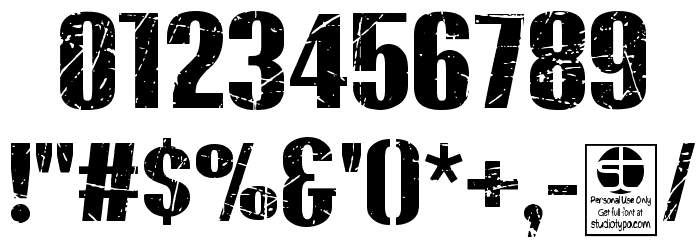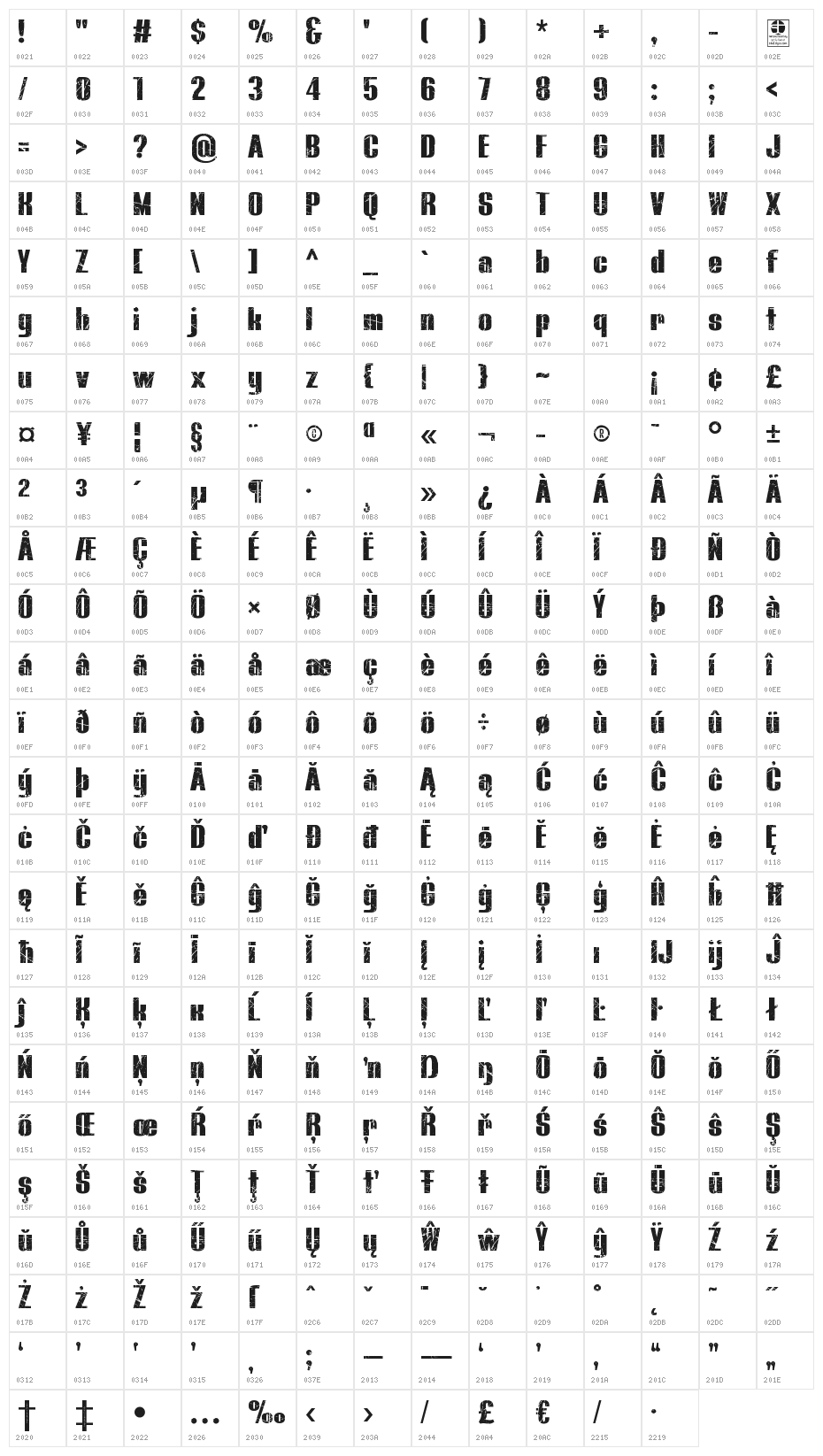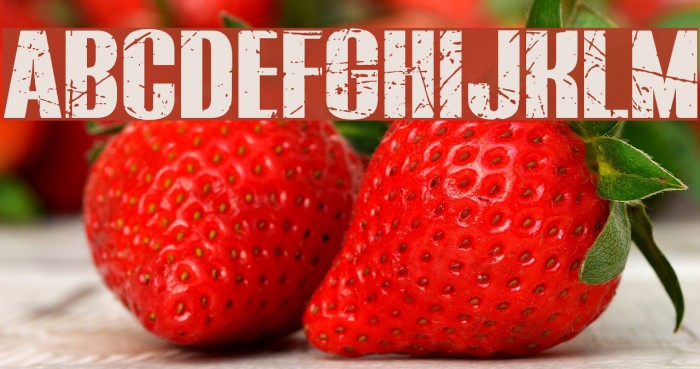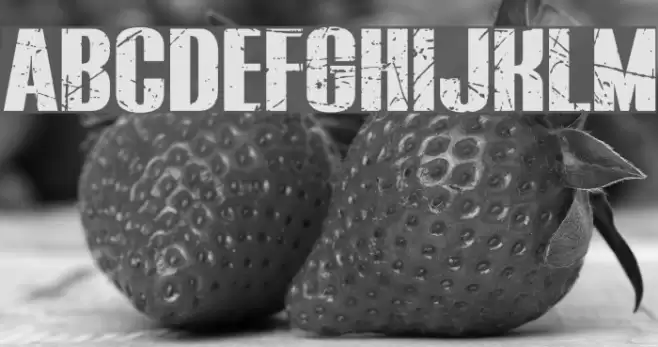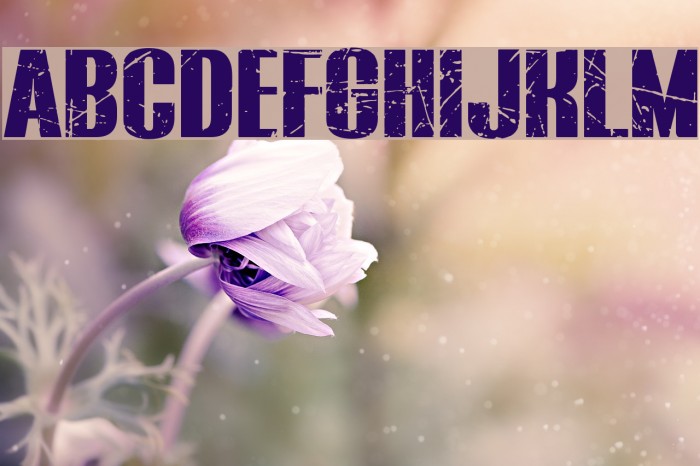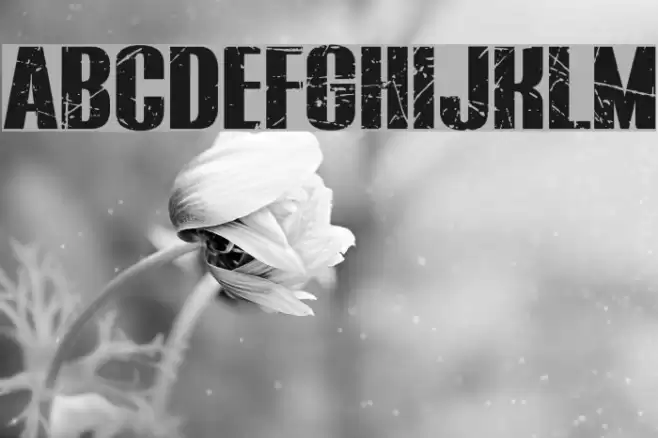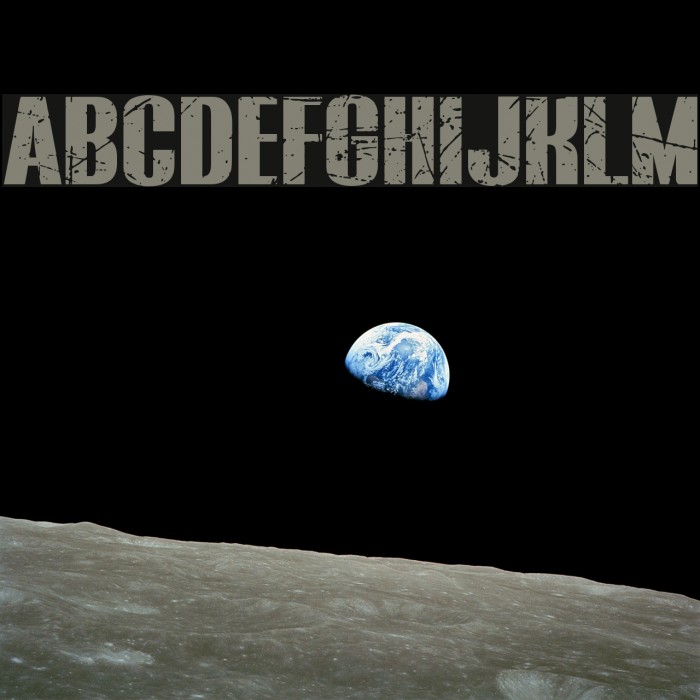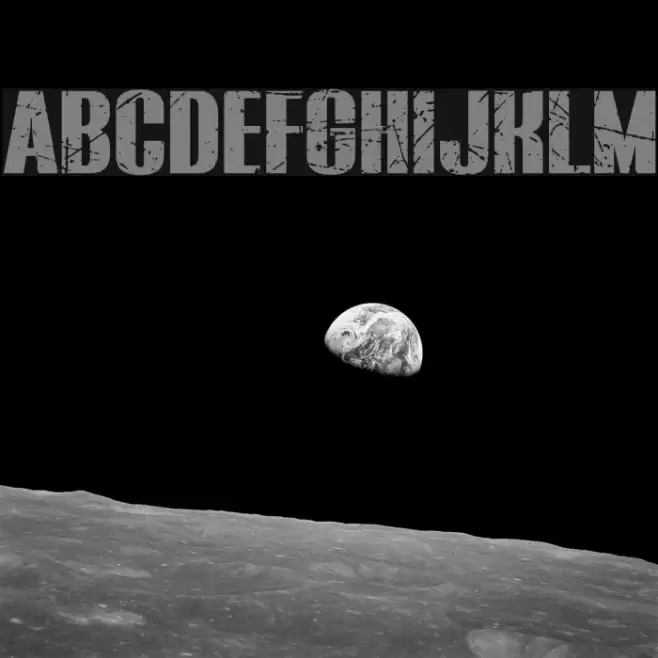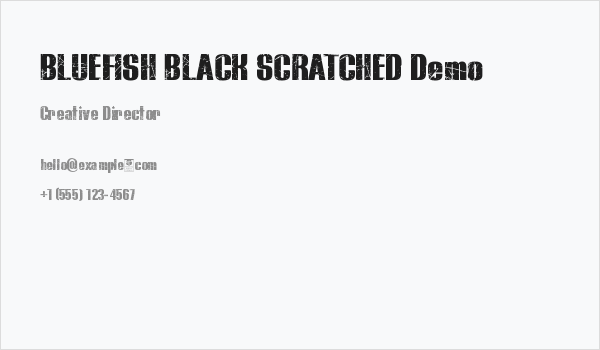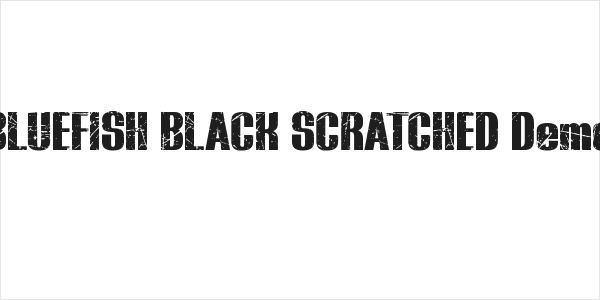
BLUEFISH BLACK SCRATCHED Demo Font
BLUEFISH BLACK SCRATCHED Demo Description
This font features a bold, distressed style with a scratched texture overlay, giving it a rugged and worn appearance. The uppercase and lowercase letters, along with numbers and special characters, maintain a consistent thickness, contributing to its strong visual impact. The distressed effect adds a sense of movement and energy, making it ideal for projects that require a gritty, urban aesthetic. The font's boldness ensures readability even with the textured design, making it suitable for attention-grabbing headlines and titles.
| Proposed Projects | Ideal for posters, album covers, branding for edgy products, or any design needing a gritty, urban feel. |